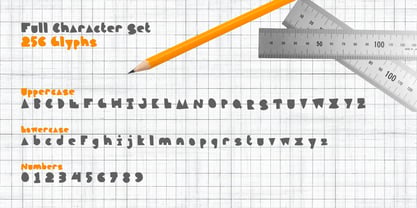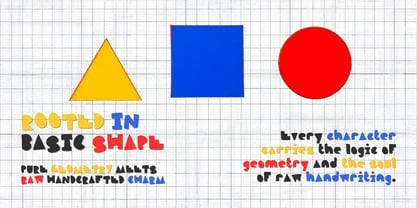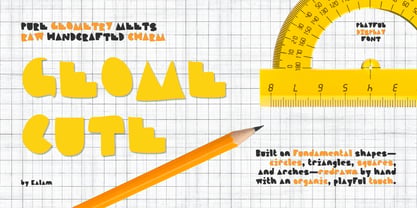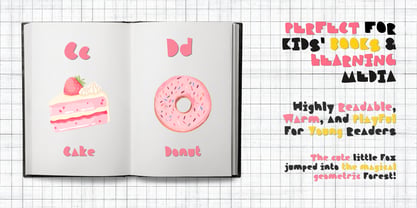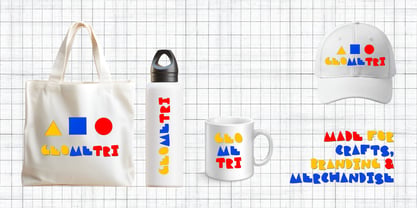
Geome Cute
by Kalam
The Geome Cute Font Family was designed by Wahyu Eka Prasetya, Moch Zamroni and published by Kalam. Geome Cute contains 2 styles and family package options. More about this family
Geome Cute – Pure Geometry Meets Raw Handcrafted Charm
What happens when strict geometric shapes step out of the math book and into the real world?
Geome Cute is an adorable, highly expressive handwritten display font rooted in pure geometric foundations—circles, triangles, squares, and arches. While its core structure is built on clean, fundamental shapes, every single character is consciously redrawn by hand with an unrefined, raw touch.
This unique contrast gives Geome Cute a rare, playful personality. It bridges the gap between structured geometric balance and the warm, imperfect charm of organic handwriting, making it wonderfully clear and captivating to read.
Key Features & Specs:
• Playful Geometric Roots: Designed with clean proportions derived from basic shapes (circles, triangles, squares, and arches).
• Raw Handwritten Feel: Intentionally crafted with organic, unpolished lines to give it a warm, human-made soul.
• Multi-Language Support: Fully equipped to handle multiple Latin-based languages for global projects.
• High Legibility: Balanced structure ensuring that headlines, titles, and short captions remain striking and easy to read.
Best Suited For:
• Children's Books & Learning Media: Perfect for storybooks, alphabet cards, educational apps, and school projects.
• Comics & Fun Graphics: Ideal for playful dialogue balloons, indie comic lettering, and quirky quotes.
• DIY Crafts & Cutting Projects: Great for custom merchandise, apparel designs, greeting cards, and digital die-cut projects.
• Branding & Packaging: Adds a friendly, approachable, and creative touch to product packaging, logos, and stickers.